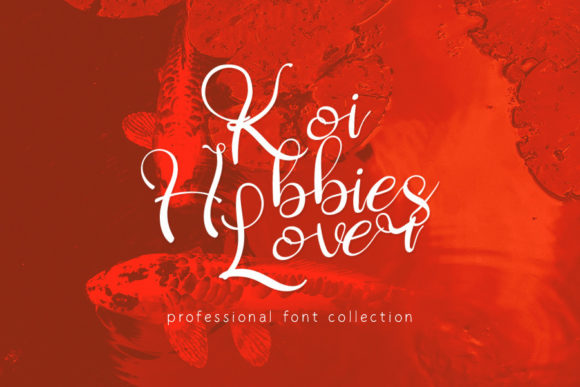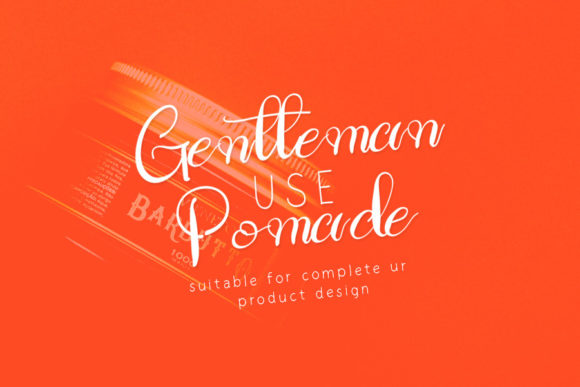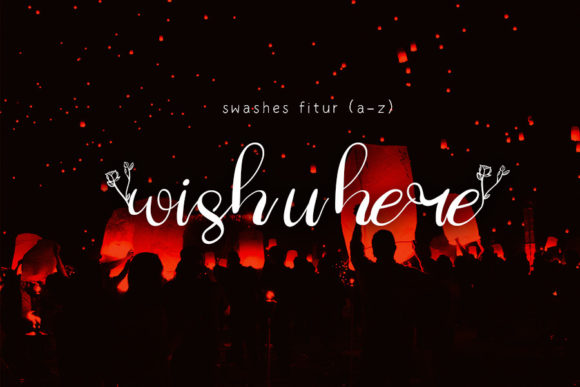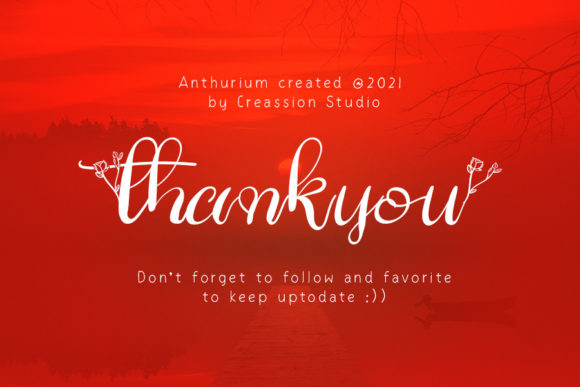
Discover the Perfect Blend of Casual Elegance: Anthurium Font
There’s nothing quite like the thrill of stumbling upon a font that perfectly captures the essence of your creative vision. For designers and writers, finding the right font can be a game-changer – it’s the difference between a mediocre project and a masterpiece. And for those who’ve been searching for that elusive combination of casual charm and elegant sophistication, the wait is finally over.
Meet Anthurium Font, a stunning round-lettered and sweet script font that will make your words dance along the baseline. With its PUA encoding, you’ll have access to all the glyphs and swashes you need to take your designs to the next level. Whether you’re working on a wedding invitation, a branding project, or a social media campaign, Anthurium Font is the perfect addition to your toolkit.
Anthurium Font Key Features
- Unique Characteristics: Anthurium Font features a unique blend of modern and vintage elements, with intricate details and ornate flourishes.
- Font Style: Script, Calligraphy, Decorative
Anthurium Font Review
Overall, I’d say Anthurium Font is a solid choice for designers looking for a unique, elegant script font. ✨ Here are a few things that really work well:
- High-quality design**: Anthurium Font is well-designed and visually appealing, making it perfect for creative projects.
- Wide range of applications**: With its elegant and sophisticated feel, this font is ideal for wedding invitations, luxury branding, and other high-end projects.
- Good legibility**: Despite its script nature, Anthurium Font is surprisingly easy to read, making it a great choice for body text or headlines.
- Limited language support**: As with many script fonts, Anthurium Font may not support all languages or character sets.
- May not be suitable for bold text**: While Anthurium Font looks great in most cases, it can get a bit messy when used in bold text or all caps.
Overall, I’d give Anthurium Font 4 out of 5 stars. It’s a great choice for designers who want a unique, high-end font for their projects, but may not be the best fit for everyone. ⚠️
Tips for Getting the Most Out of Anthurium Font
Experiment with different font sizes, colors, and combinations to achieve a unique look.
Use Anthurium Font to add a touch of elegance and sophistication to your designs.
Combine Anthurium Font with other creative elements, such as illustrations or graphics, to create visually appealing designs.
Anthurium Font is ideal for:
Alternatives to Anthurium Font
Montserrat is a modern sans-serif font perfect for creating clean and minimalistic designs. It is ideal for use in logos, headings, and body text in digital products and applications. Montserrat is more geometric and structured compared to Anthurium Font, which is more elegant and classic.
2. Playfair Display
Playfair Display is a luxurious and elegant serif font ideal for creating high-end designs. It is perfect for use in headings, titles, and special occasions. Playfair Display is more ornate and decorative compared to Anthurium Font, which is more understated and classic.
Lato is a clean and modern sans-serif font perfect for creating elegant and sophisticated designs. It is ideal for use in body text, headings, and digital products. Lato is more rounded and friendly compared to Anthurium Font, which is more angular and classic.